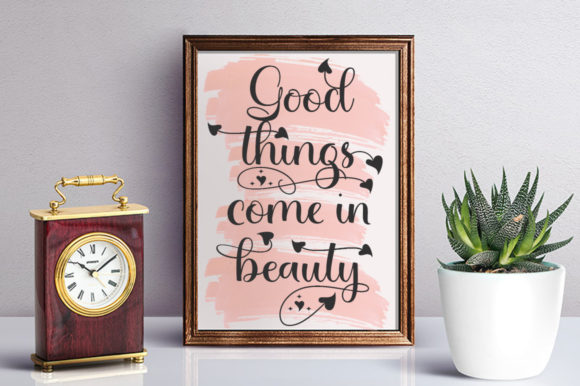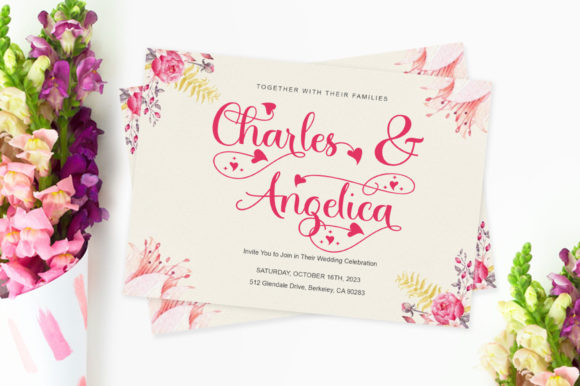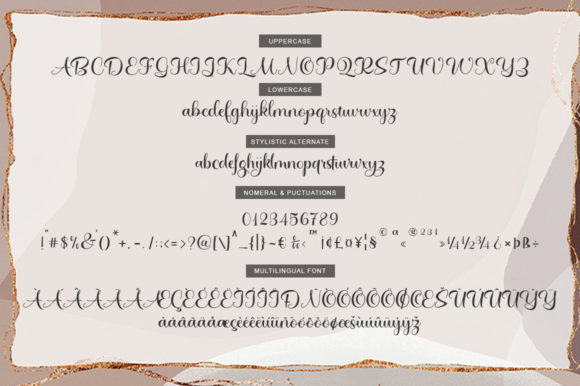
Unlock the Magic of Cherrious Script Font
Have you ever stared at a blank page, trying to conjure up the perfect phrase to capture the essence of a romantic evening or a whimsical wedding invitation? I know I have! As a designer, I’ve often found myself searching for the perfect font to bring my creative vision to life. And then, I discovered the enchanting Cherrious Script Font.
With its elegant curves and whimsical flair, Cherrious Script Font is the perfect tool for designers seeking to add a touch of magic to their work. This beautifully crafted font is PUA encoded, making it easy to access all the glyphs and swashes that will take your designs to the next level. Whether you’re creating a wedding invitation, a branding package, or a whimsical children’s book, Cherrious Script Font is the perfect companion to help you bring your imagination to life.
- Unique Characteristics: Whimsical, hand-drawn script font with a vintage feel, featuring connected letters and subtle flourishes
Designer Review: Cherrious Script Font
I had the opportunity to work with the Cherrious Script Font, and here’s my honest review.
- The Cherrious Script Font is a beautiful, elegant script that adds a touch of sophistication to any design. It’s perfect for creating a luxurious and high-end feel.
- The font is highly legible, even at smaller sizes, making it ideal for body text or titles.
- The font’s unique flair and swashes add a lot of character to the design, making it stand out from more generic script fonts.
- The Cherrious Script Font can be a bit overwhelming if used in large quantities. It’s best used in moderation to avoid visual fatigue.
- The font may not be suitable for projects that require a more modern or minimalist aesthetic, as it has a distinctly vintage feel.
- The font’s swashes can sometimes be distracting, especially if not used consistently throughout the design.
Overall, I’m impressed with the Cherrious Script Font. While it has some limitations, it’s a beautiful and unique font that can add a lot of character to a design. I would definitely consider using it for projects that require a luxurious or high-end feel.
For the most effective use of Cherrious Script Font, try the following:
1. Pair it with bold or sans-serif fonts for contrast.
2. Use it for titles, headings, and emphasis.
3. Experiment with different font sizes and colors to create visual interest.
Cherrious Script Font is ideal for:
2. Branding and logo design.
3. Event signage and banners.
4. Personalized gifts and stationery.